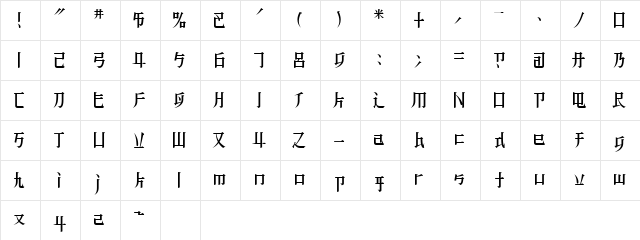
Complete KZ BLADERUNNER 1 glyph index. Displaying only characters natively supported by KZ BLADERUNNER 1 font.
KZ BLADERUNNER is a composed and adaptable typeface that performs quietly and consistently across a wide range of design contexts.